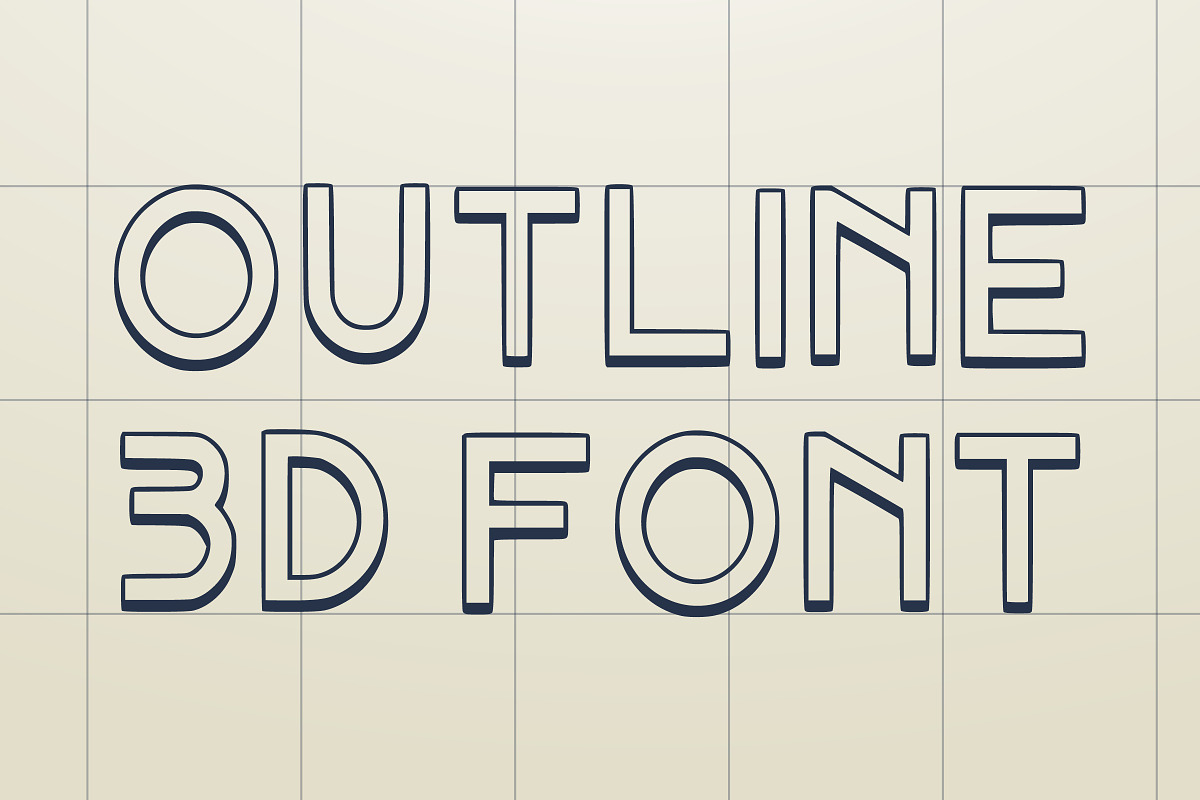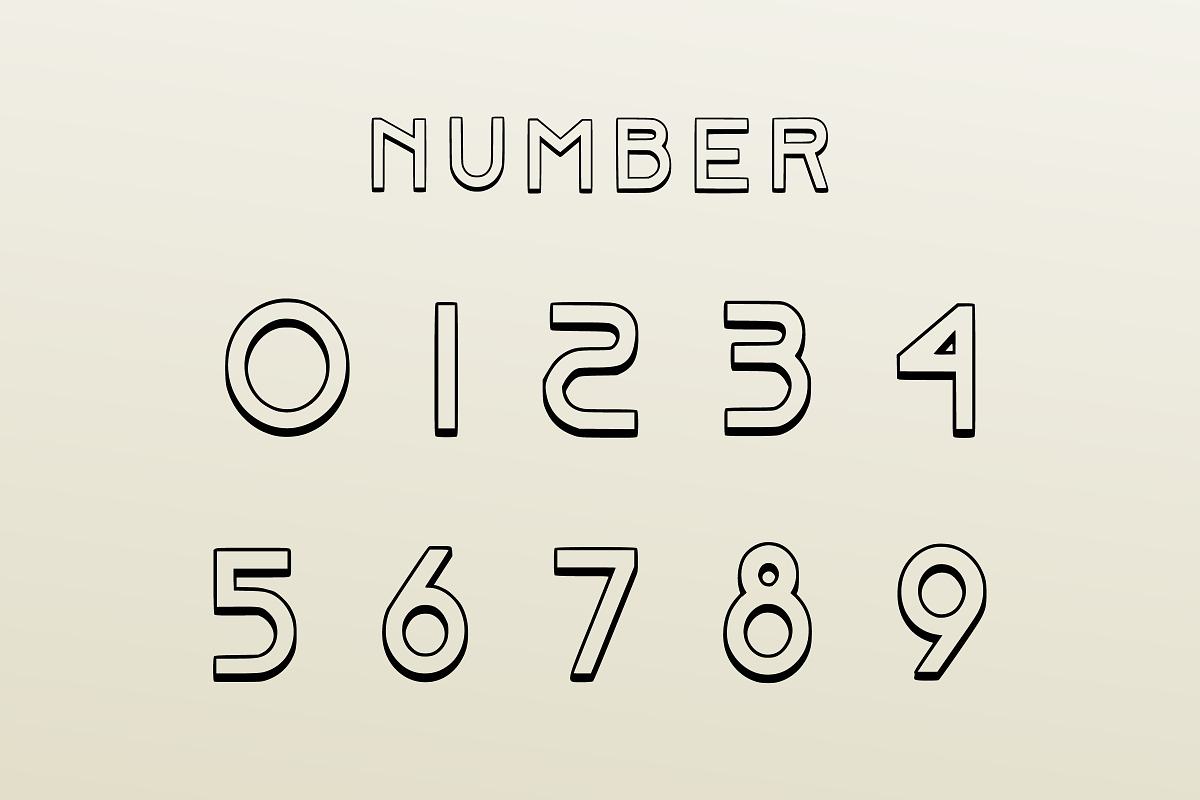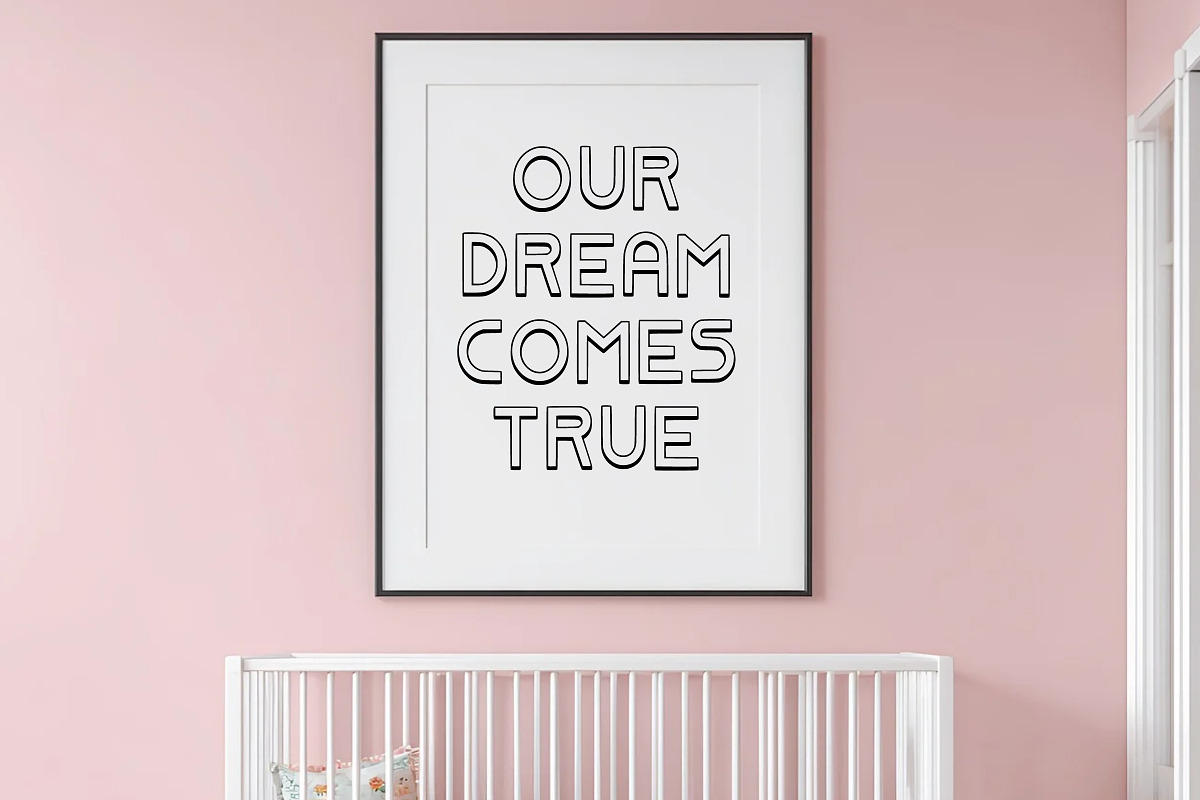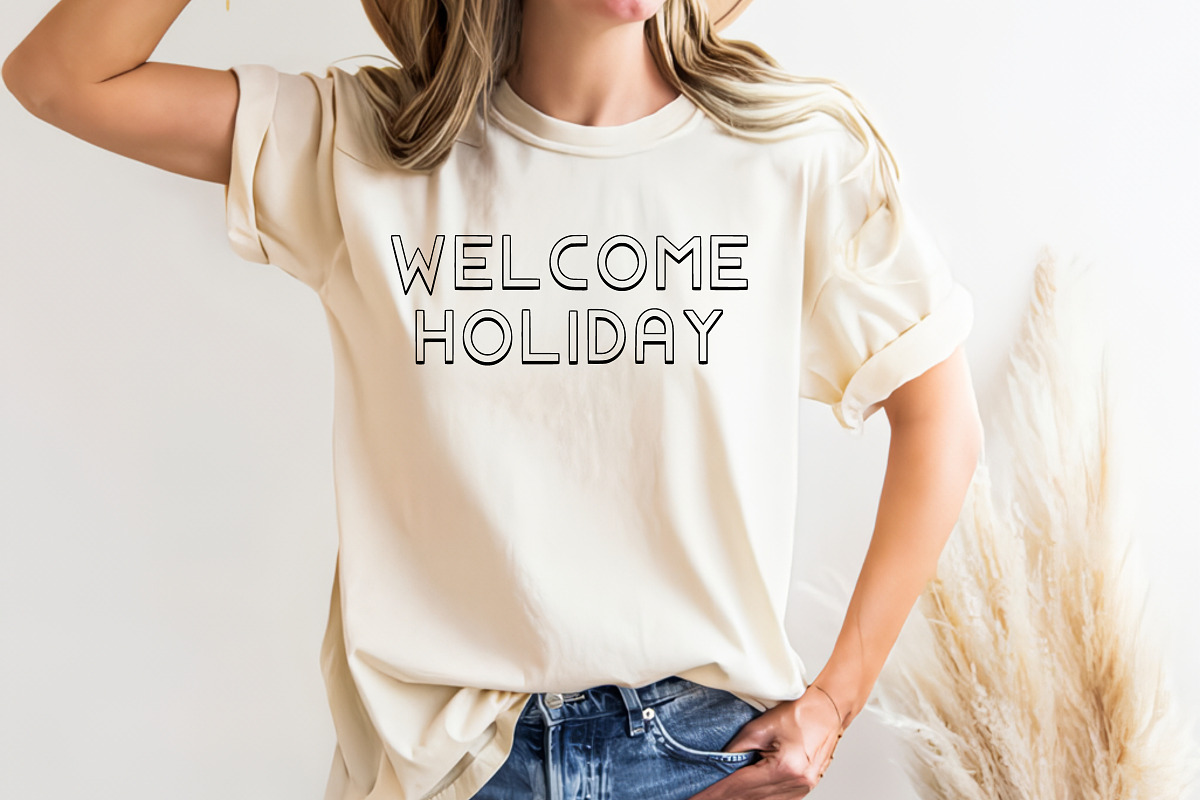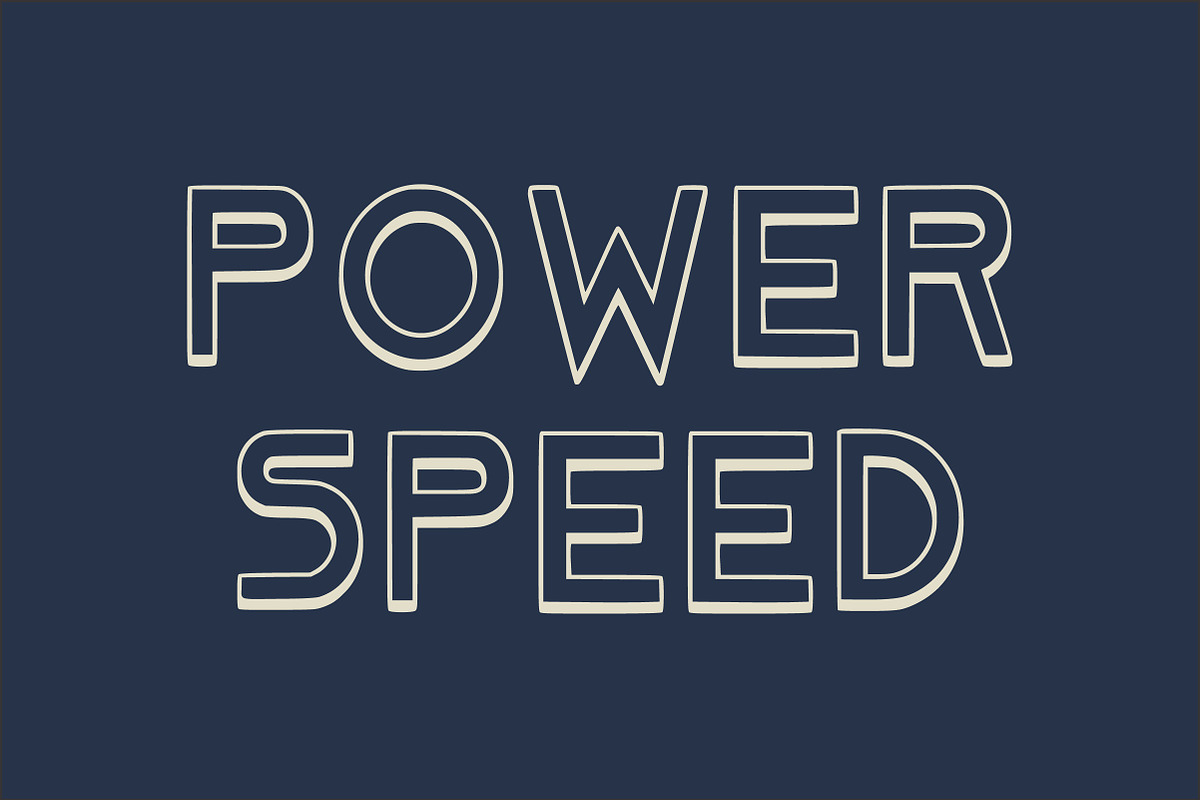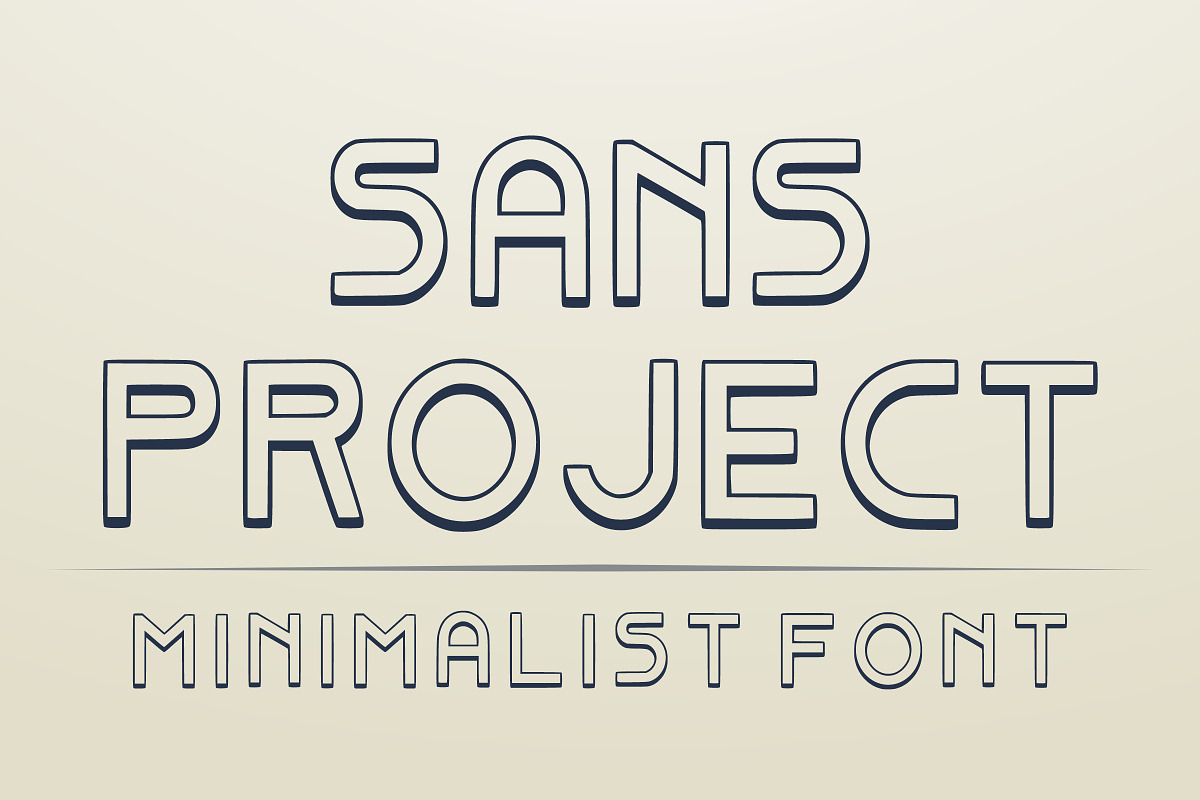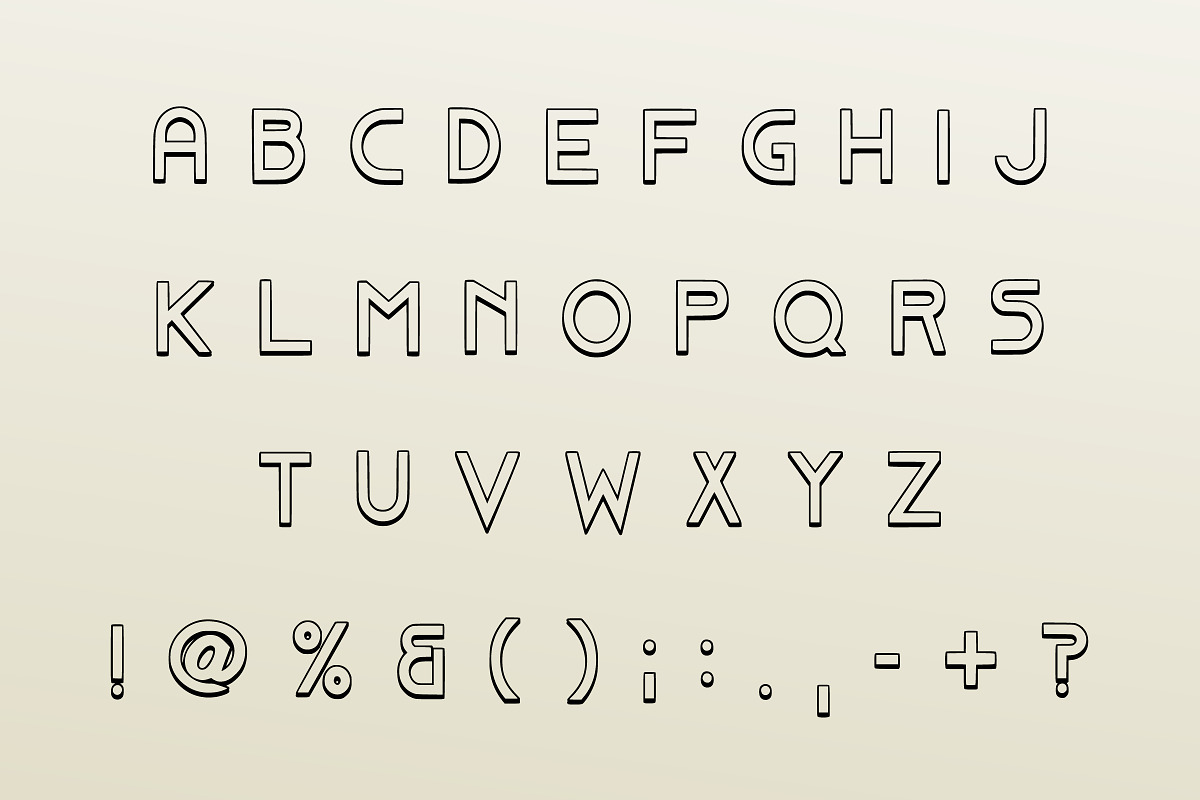
Sans Project
Sans Project is a simple and versatile font designed to inspire creativity and make learning English letters fun for children. With clean, easy-to-recognize shapes, this font encourages kids to use their imagination while mastering letter formation and recognition. Its open-ended design is perfect for various activities like coloring, painting, gluing, cutting, and collage making